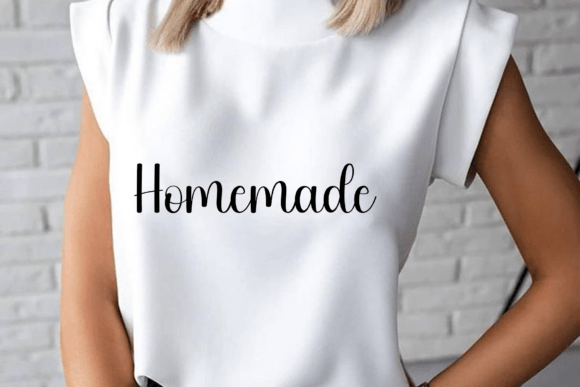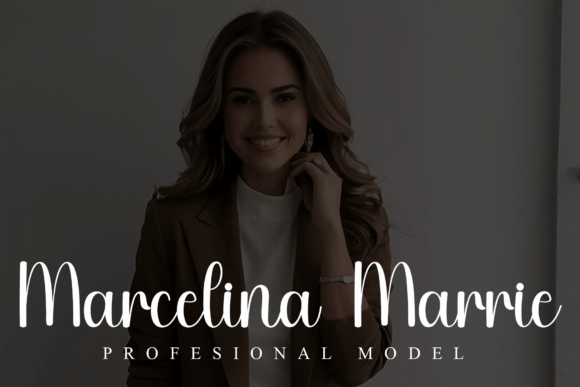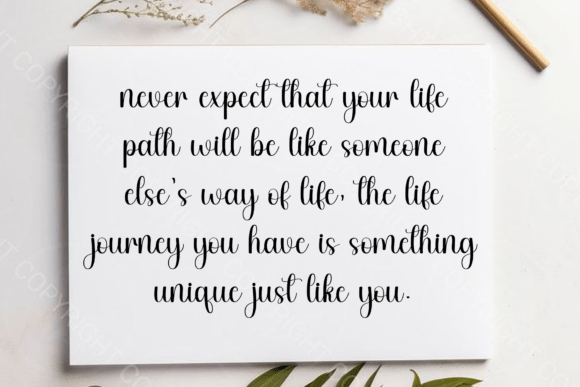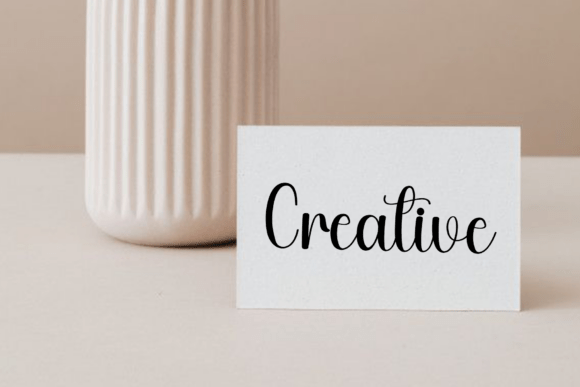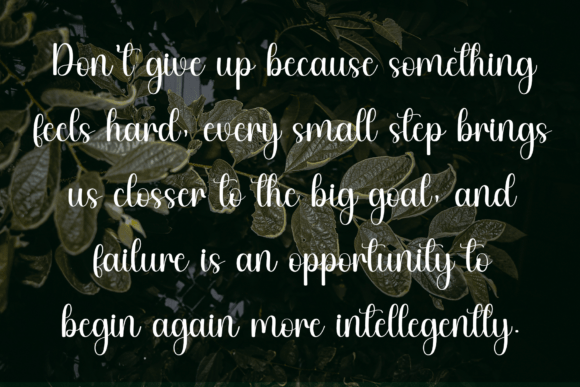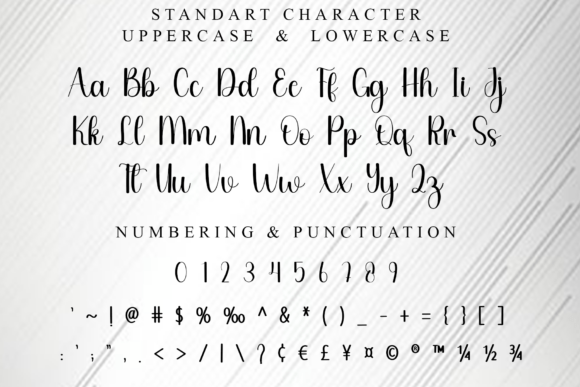
Introducing Banana Bread Font: The Perfect Blend of Casual and Creative
Are you tired of using the same old fonts for your personal projects, invitations, and social media graphics? Look no further than the Banana Bread Font, a casual and creative typeface that exudes warmth and friendliness. With its round, playful strokes, this font creates a relaxed and approachable feel that’s perfect for designers and crafters looking to add a personal touch to their work.
The Charm of Hand-Drawn Aesthetic
The Banana Bread Font boasts a charming, hand-drawn aesthetic that adds a fun and unique touch to any design. Its playful strokes and rounded edges create a sense of whimsy and approachability, making it perfect for projects that require a personal and friendly feel. Whether you’re designing invitations, social media graphics, or personal projects, this font is sure to bring a smile to your audience’s faces.
Versatility and Compatibility
The Banana Bread Font is a perfect fit for designers and crafters who want to add a personal touch to their work. Whether you’re creating custom invitations, designing social media graphics, or working on personal projects, this font is sure to bring a unique and playful touch to your designs. Its casual and creative vibe makes it perfect for a wide range of projects, from DIY crafts to professional design work.
Key Features of Banana Bread Font
- Casual and creative font with a warm and friendly feel
- Round, playful strokes create a relaxed and approachable feel
- Charming, hand-drawn aesthetic adds a fun and unique touch to any design
- Perfect for personal projects, invitations, social media graphics, and more
Tips for Using Banana Bread Font
To get the most out of the Banana Bread Font, here are a few tips to keep in mind:
- Use it for personal projects, such as custom invitations, DIY crafts, and personal blog posts
- Pair it with other fonts to create a unique and playful contrast
- Use it for social media graphics, such as Instagram posts, Facebook updates, and Twitter headers